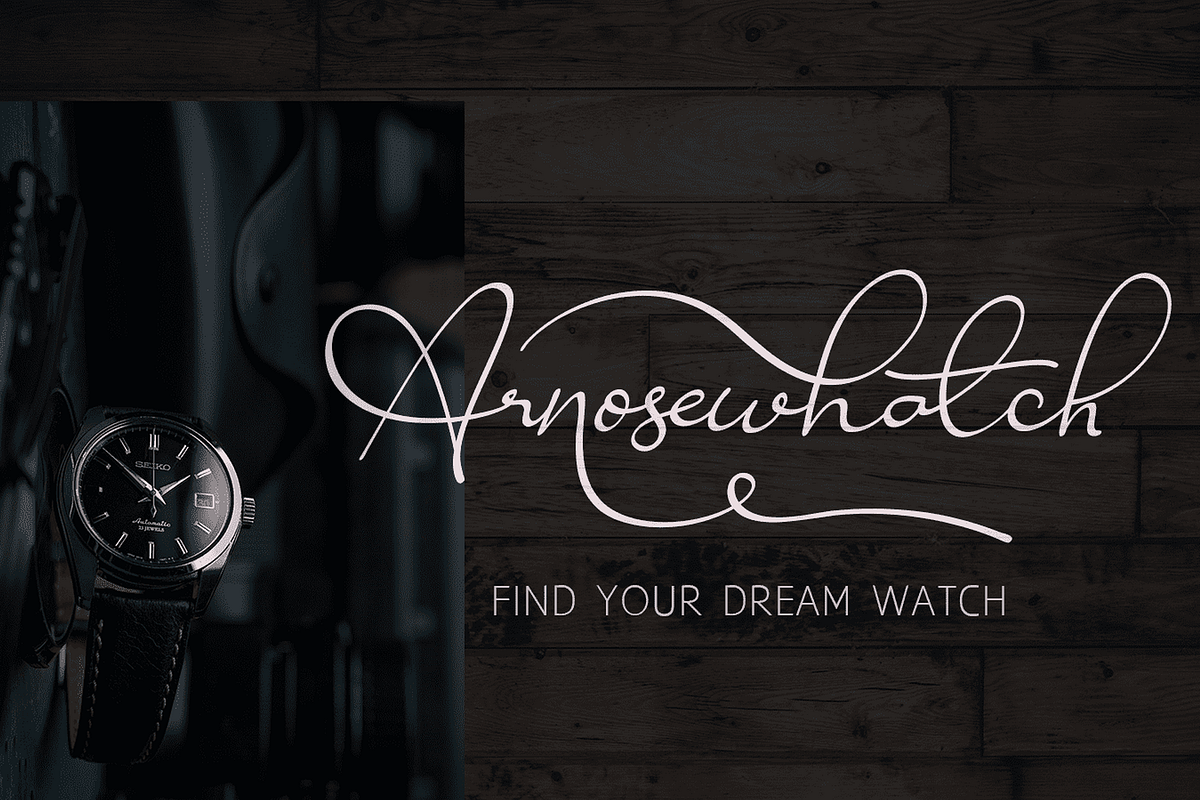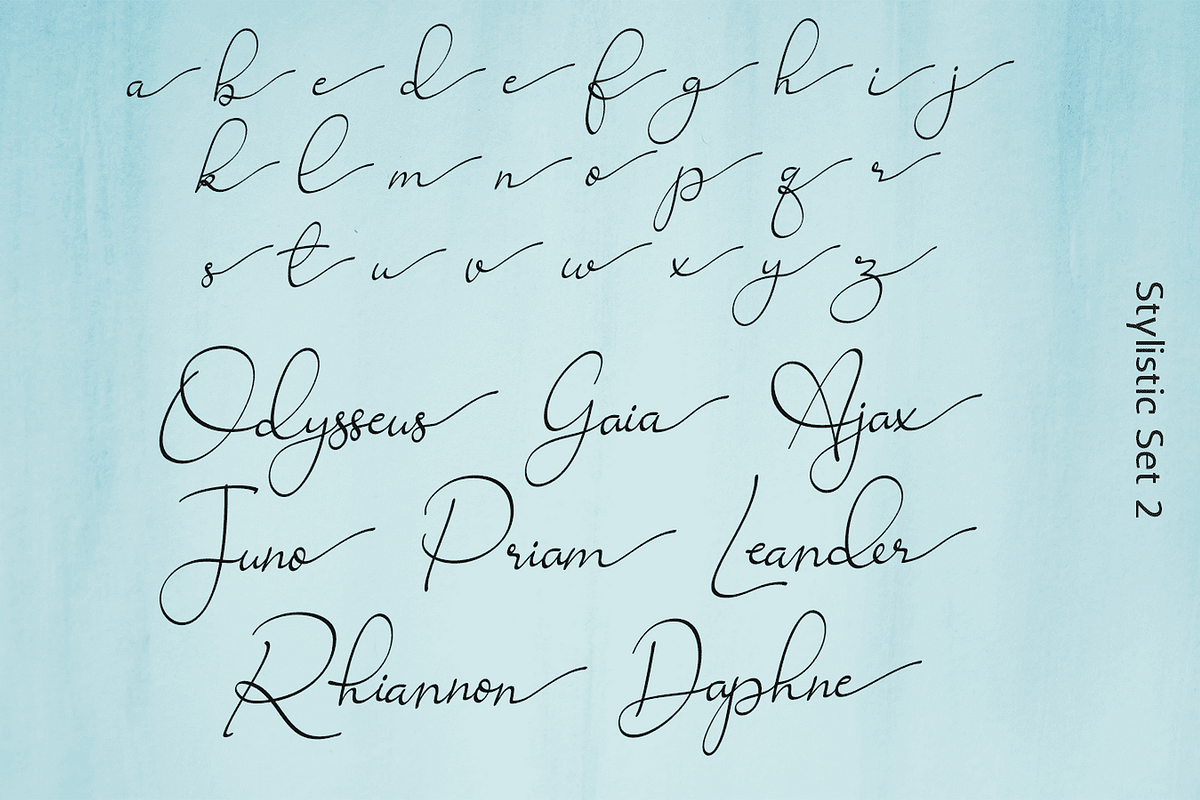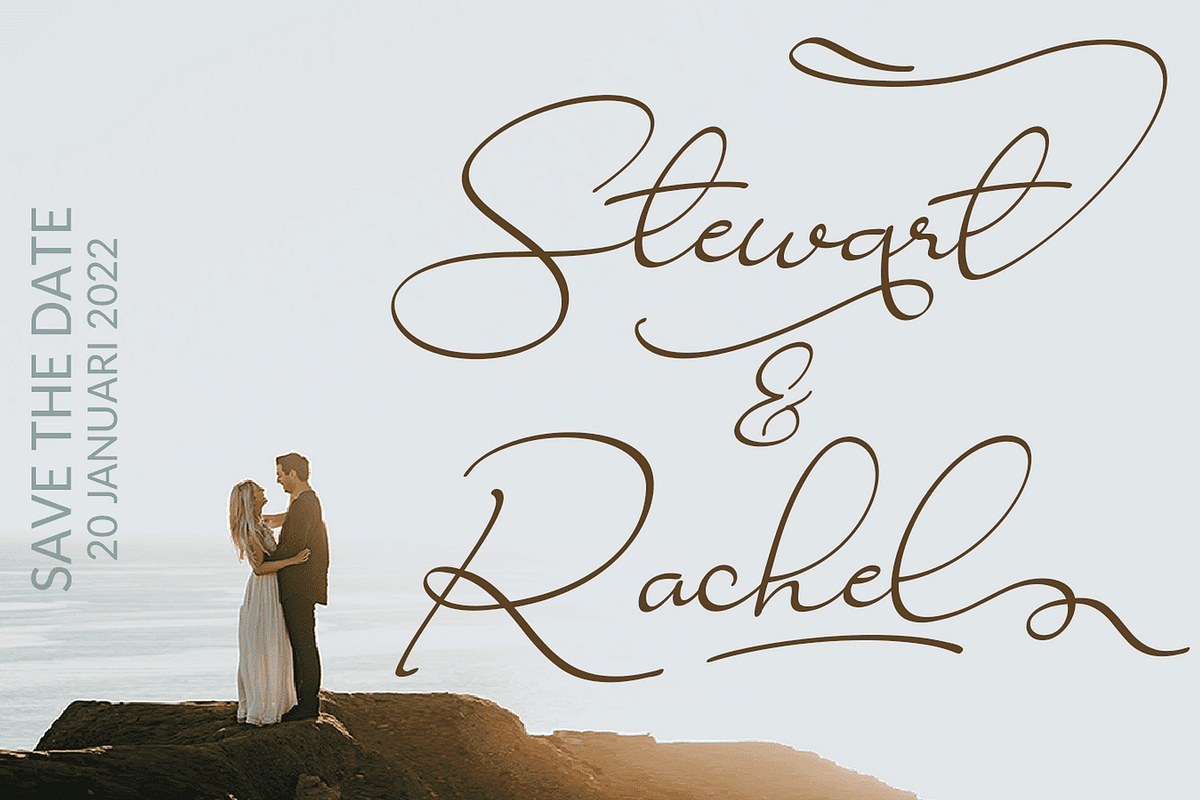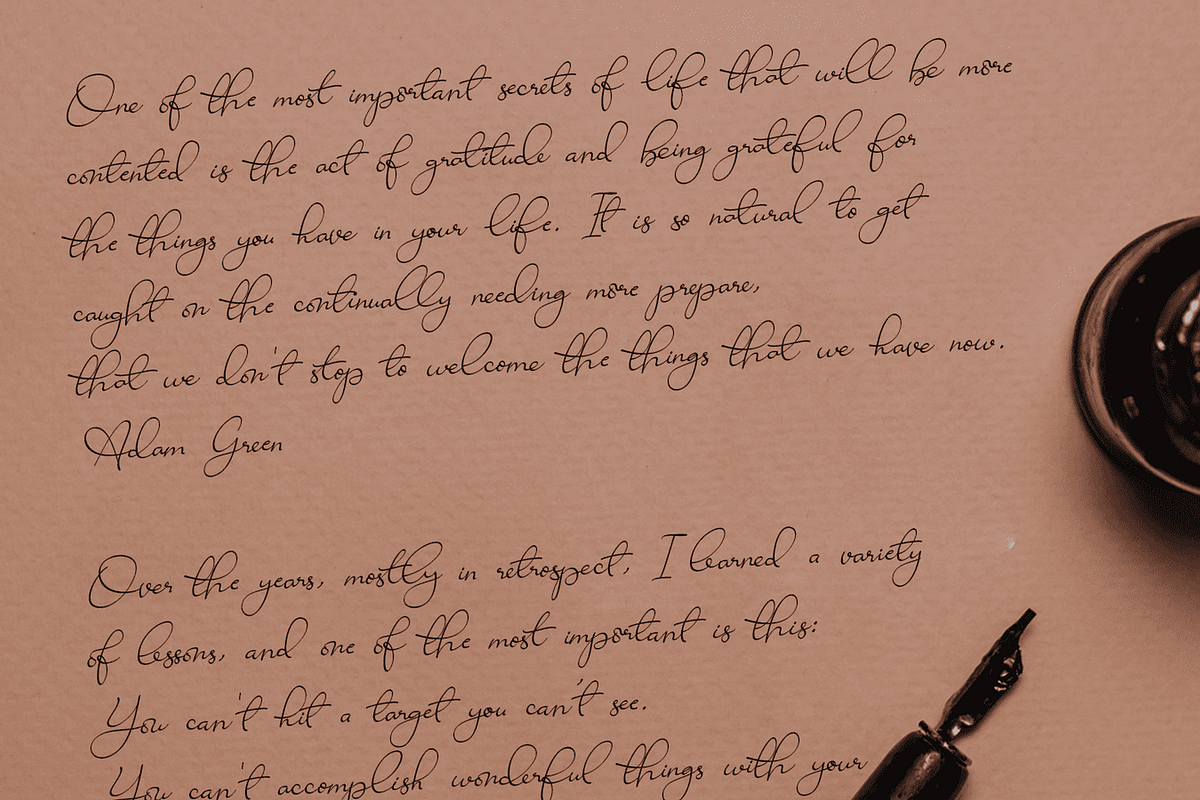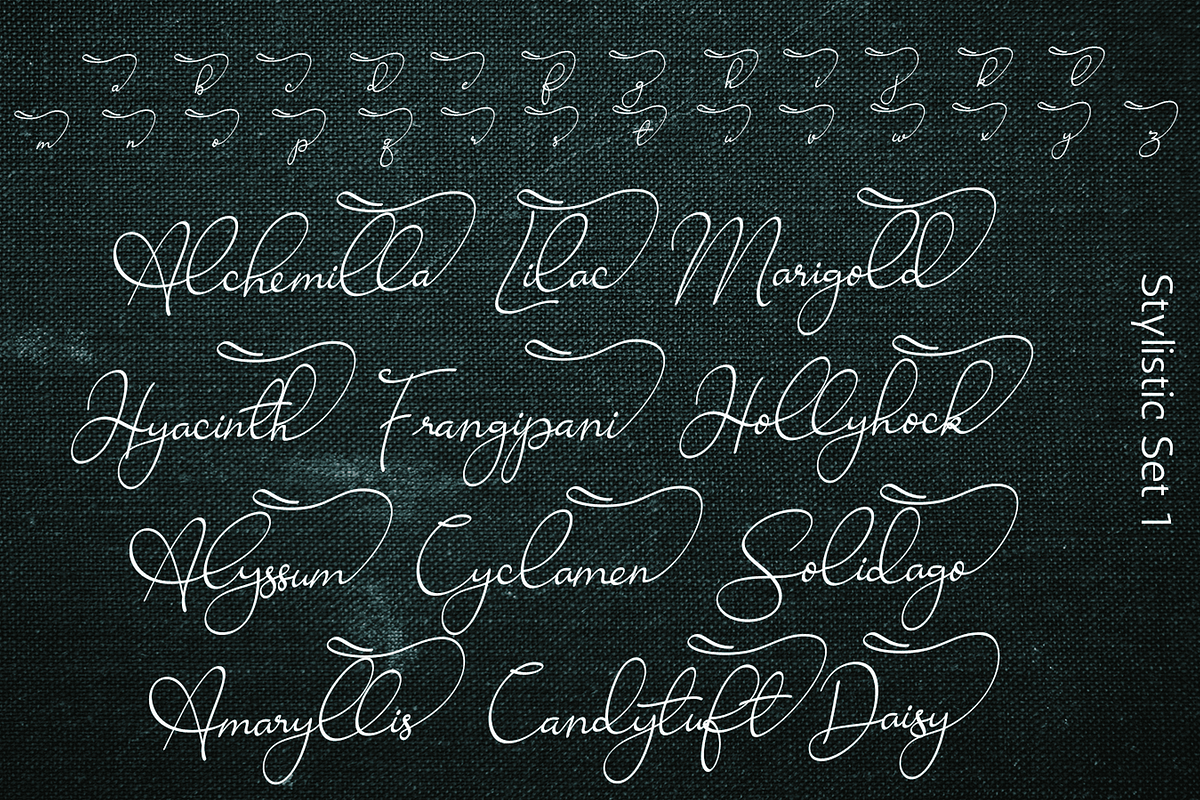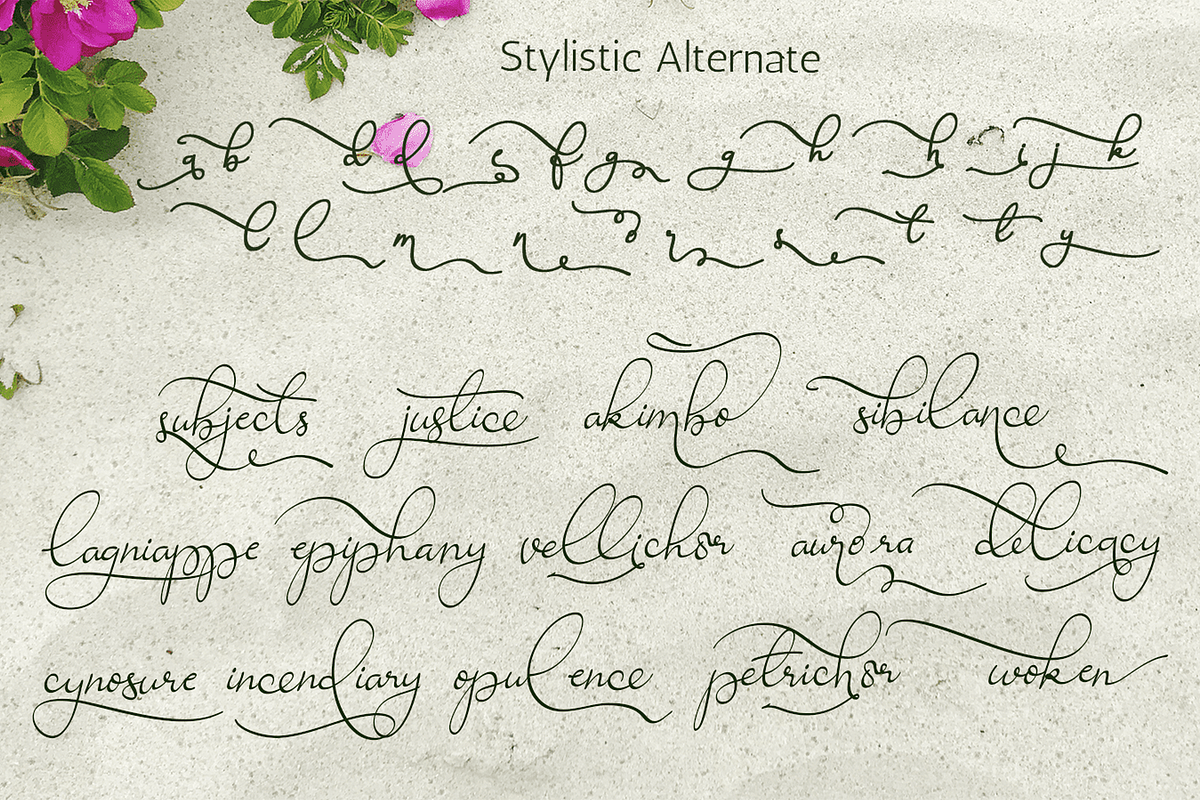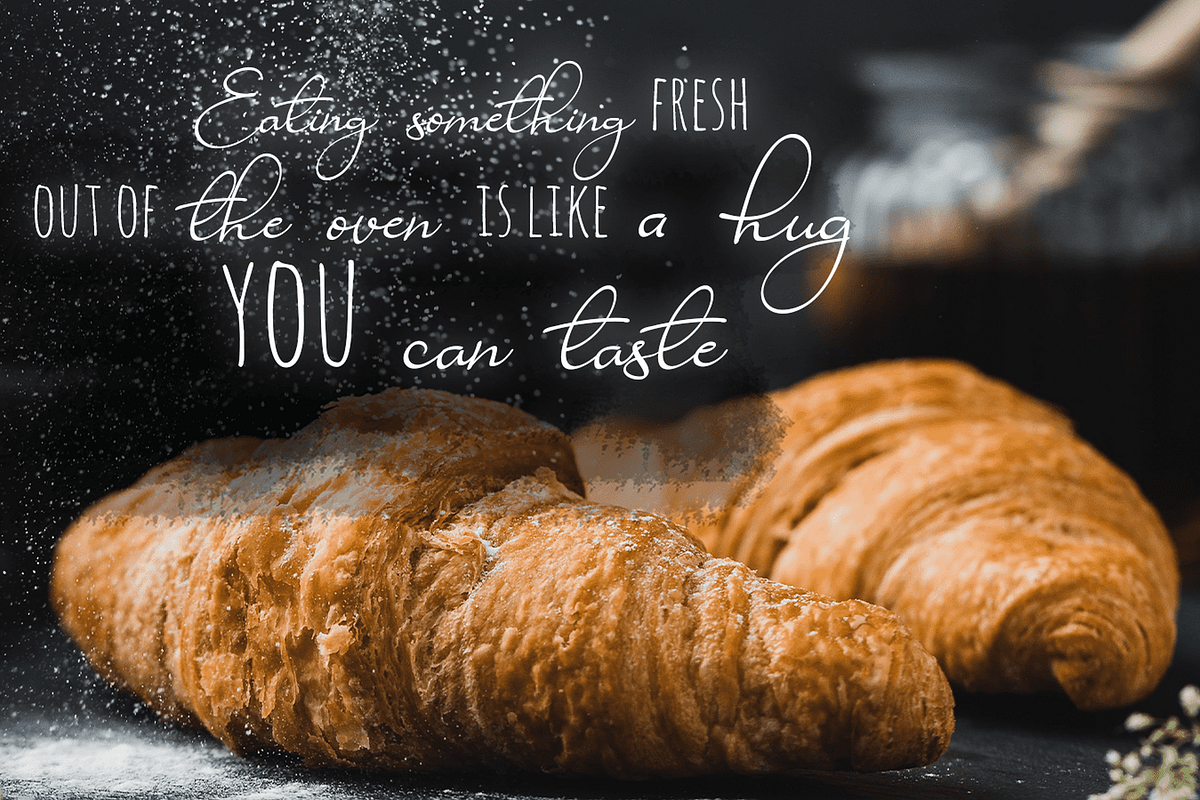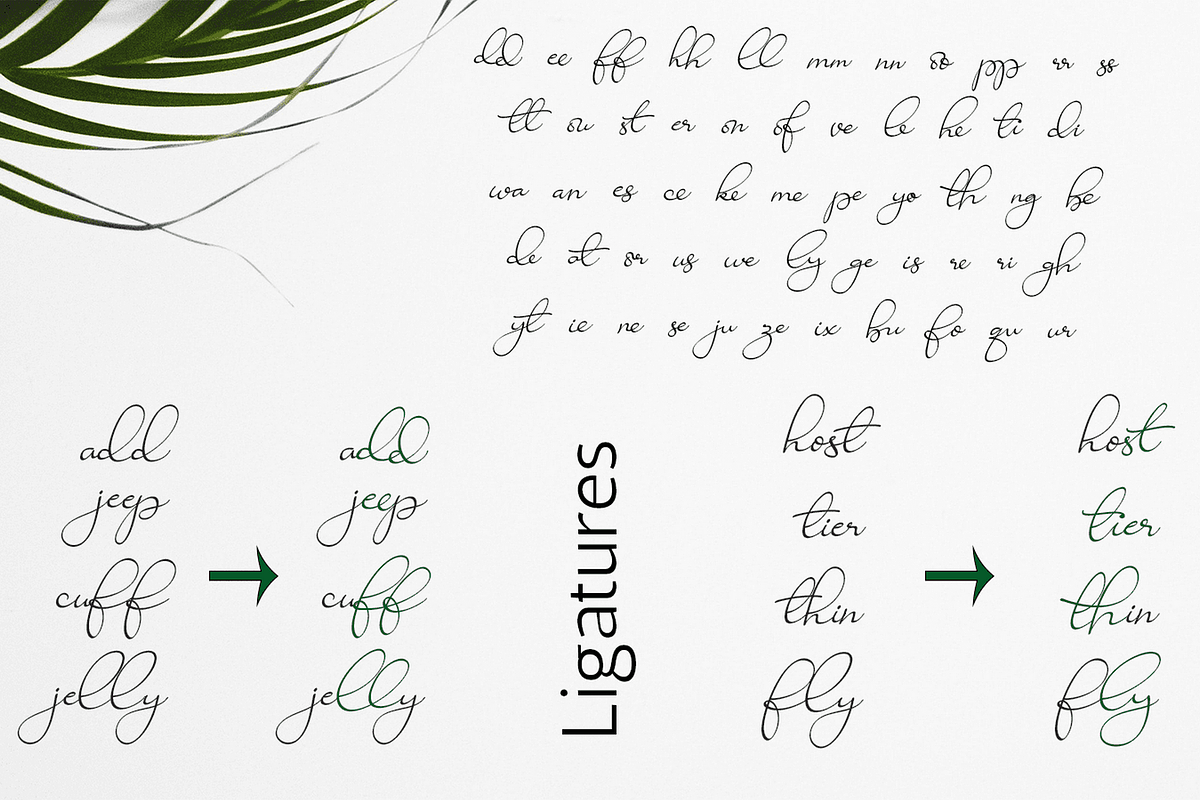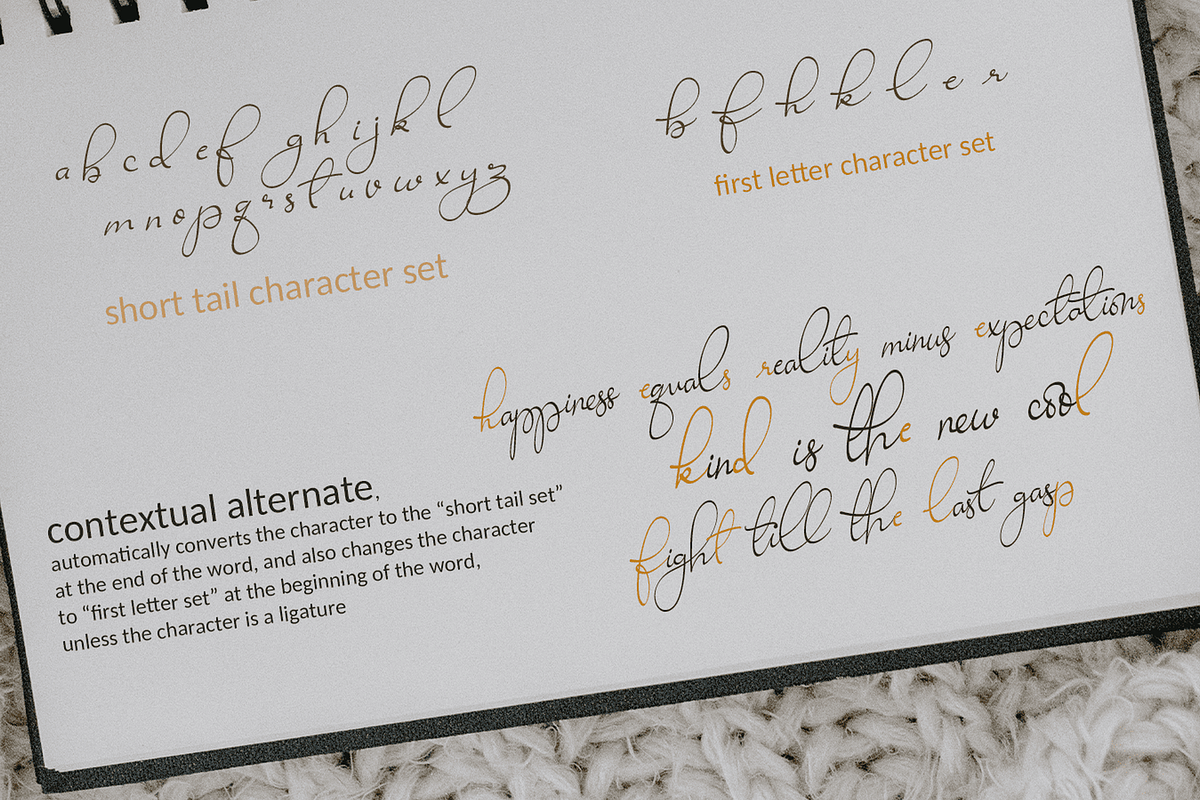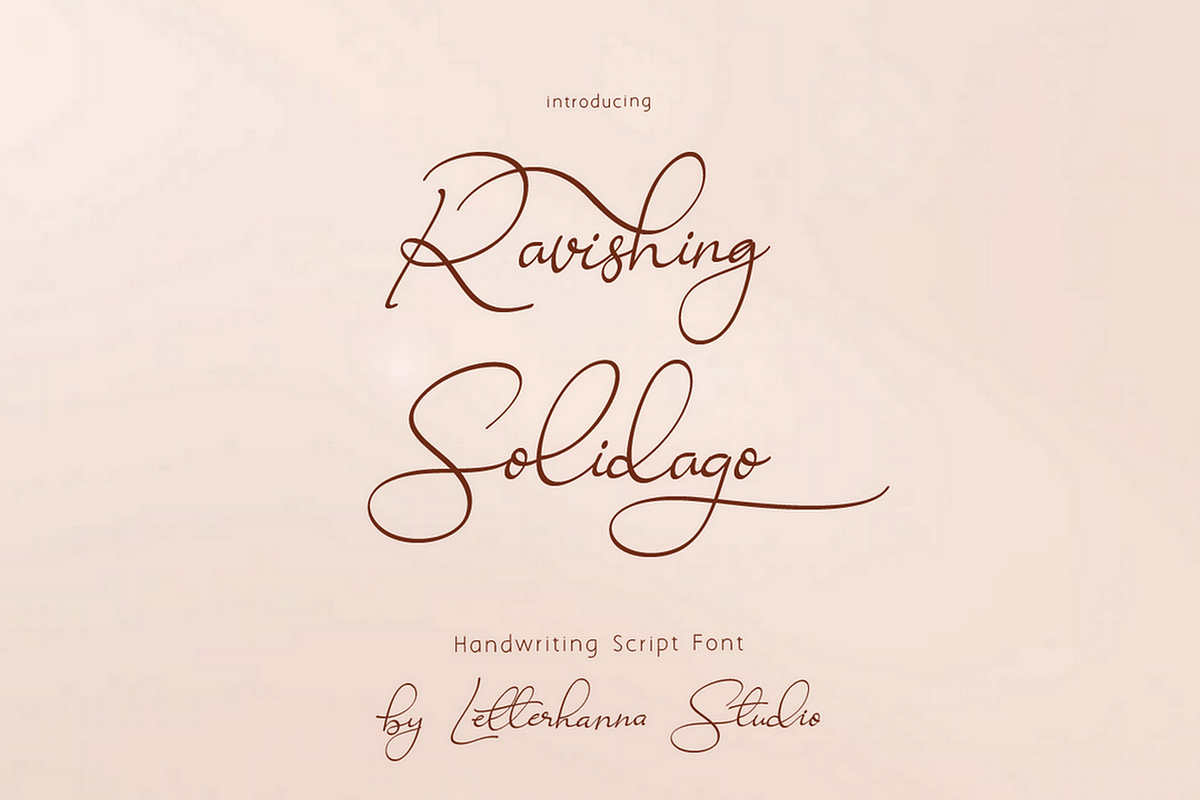
Ravishing Solidago Font
Introducing Ravishing Solidago Font, An authentic & organic hand-drawn script font. This font has been carefully designed to re-create natural handwritten text, and includes 55 custom ligatures to achieve those free flowing pen strokes. Ravishing Solidago Font is perfect for many different project such as logos & branding, invitation, wedding designs, social media posts, advertisements, product packaging, product designs, label, photography, watermark, special events or anything.
You will get full set of lowercase and uppercase letters, numerals and punctuation, multilingual symbols, lowercase beginning and ending swashes, ligatures, stylistic alternates and extra swashes.
Beginning and ending swashes
Underline swashes
Stylistic alternate.